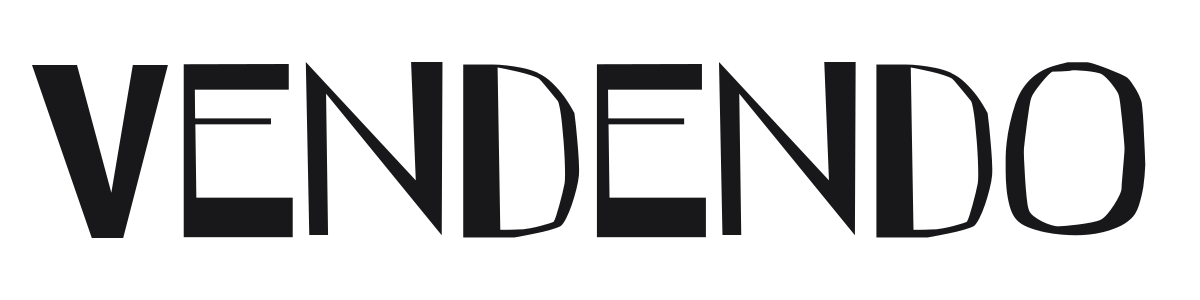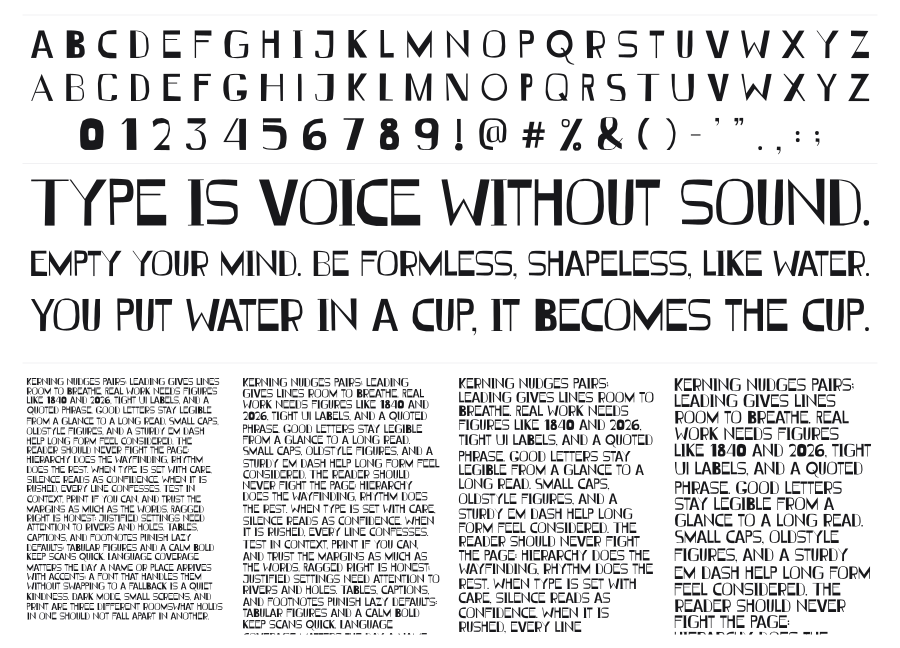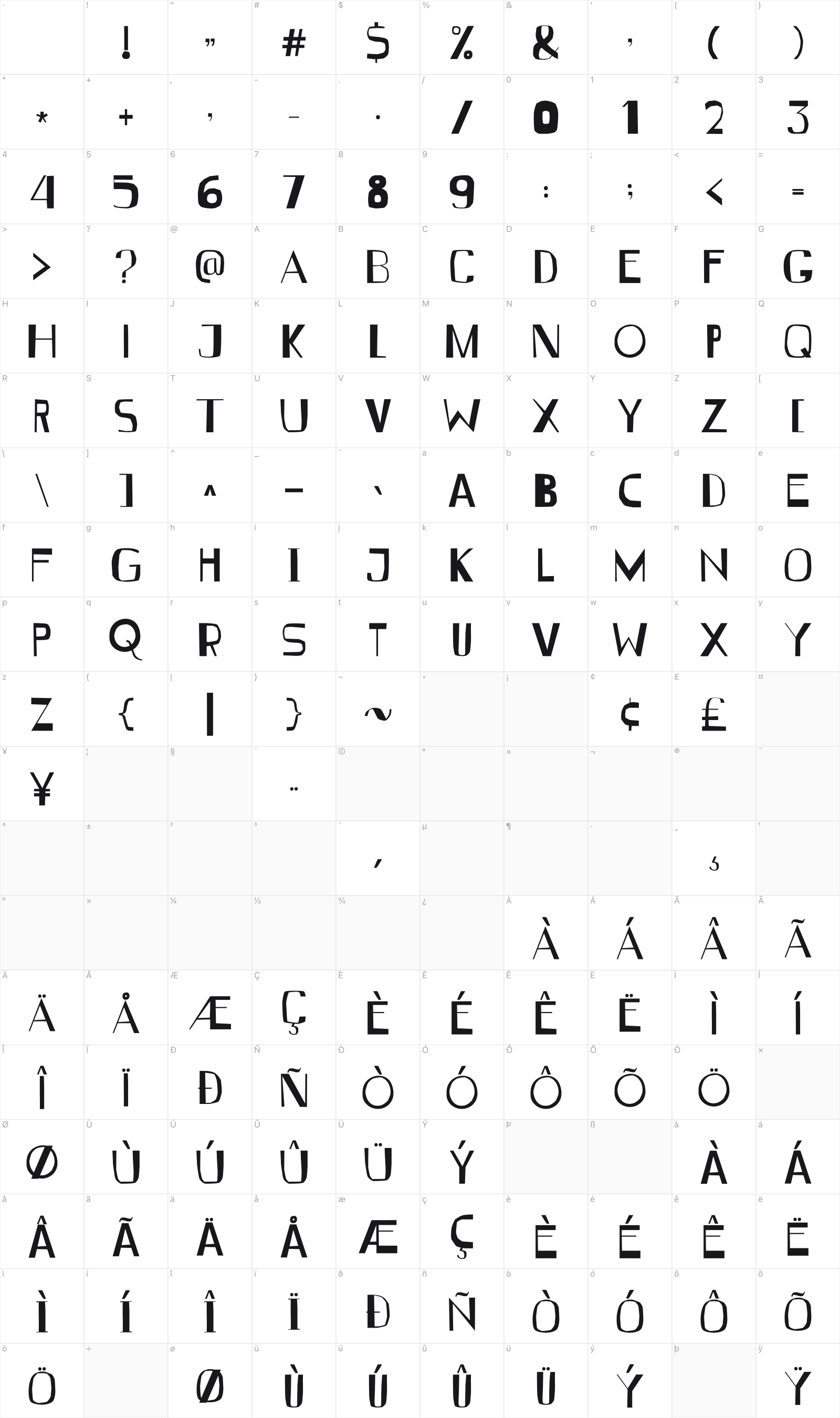
Vendendo
Vendendo is a condensed stencil display font with bold, fragmented characters cut apart by deliberate gaps and rectangular notches. The disrupted strokes give it an avant-garde, deconstructed energy that sits between industrial stencil and experimental editorial typography. Strong at large sizes on posters, covers, and identity work where raw visual tension is the point.